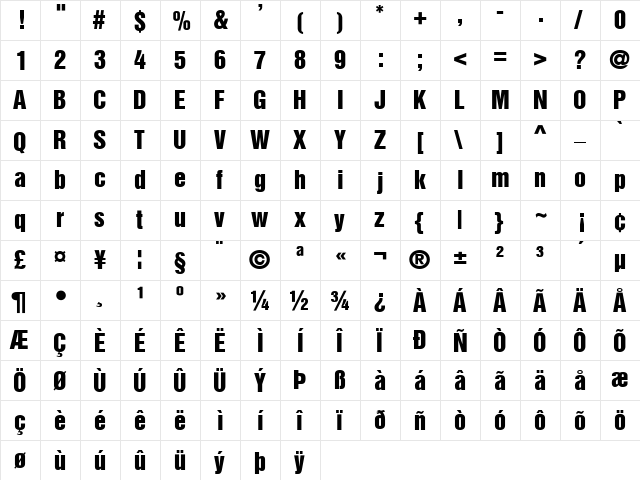
SwitzerlandInserat Regular
Design Context for SwitzerlandInserat Typeface
SwitzerlandInserat takes a measured approach to typography — its balanced proportions and neutral character make it a reliable workhorse for both digital and print work.